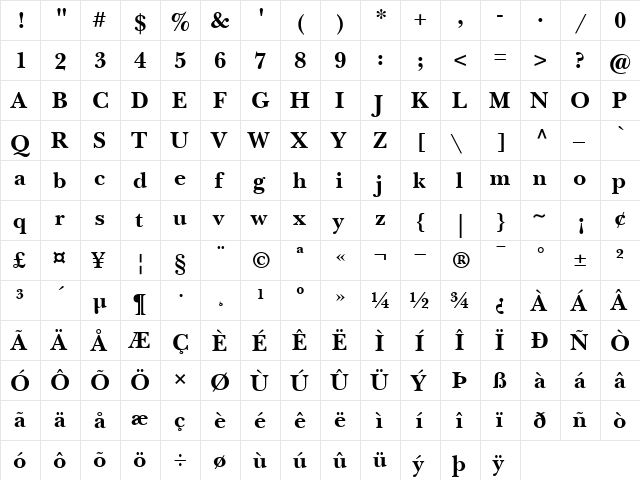
ITCNewBaskerville Bold Font Preview
ITCNewBaskerville Bold
Design Context for ITCNewBaskerville Typeface
ITCNewBaskerville is a composed and adaptable typeface that performs quietly and consistently across a wide range of design contexts. Its bold stroke weight gives it real presence on the page.
Pro Tip: Pair ITCNewBaskerville with a font of contrasting weight or personality to build a more expressive typographic hierarchy.